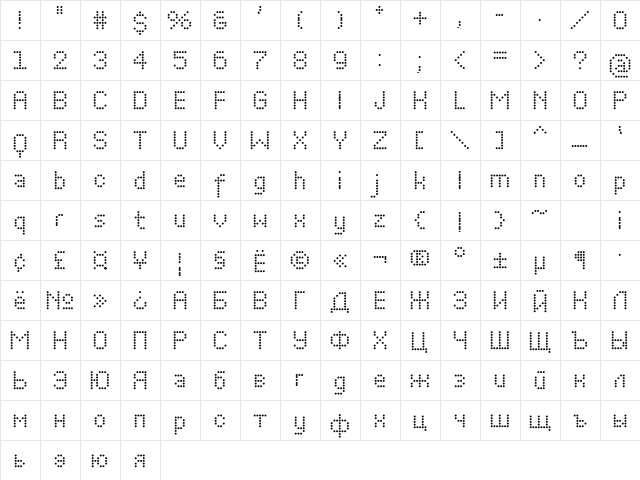
Perfo Normal
Design Context for Perfo Typeface
Perfo is a composed and adaptable typeface that performs quietly and consistently across a wide range of design contexts.